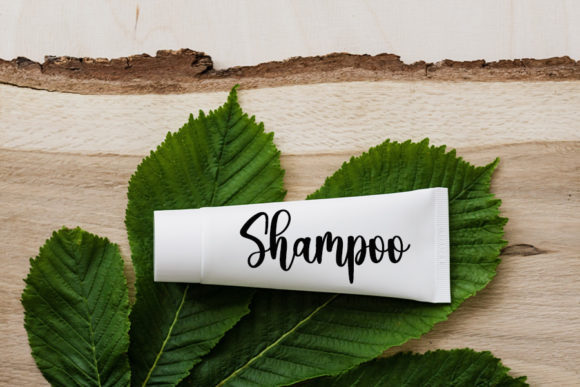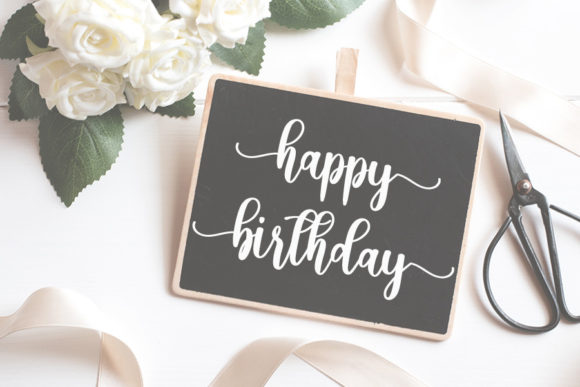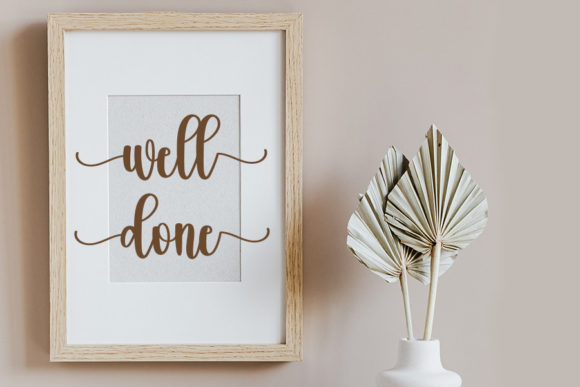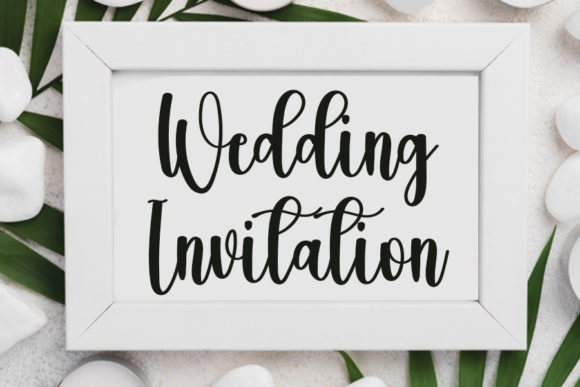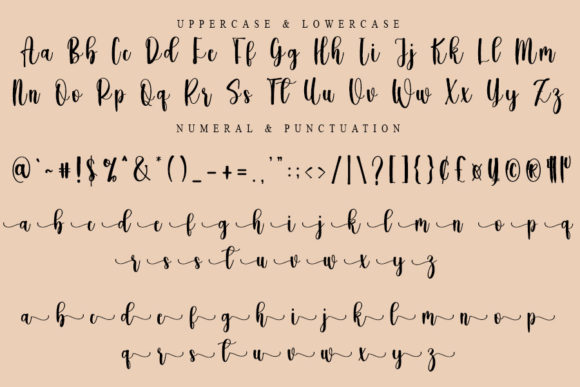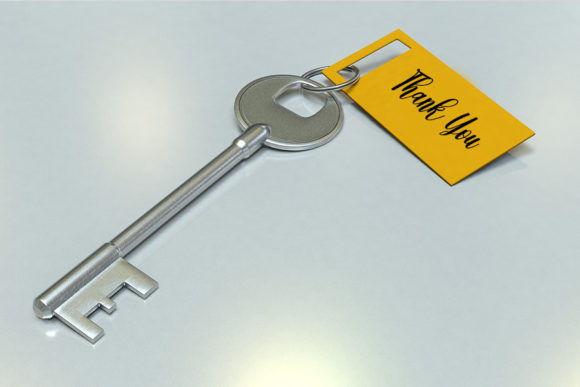
Happiness Font: Elevate Your Designs with Elegance and Class
In the world of typography, fonts play a crucial role in conveying emotions and setting the tone for designs. For those seeking a beautiful and refreshing look, Happiness Font is a lovely and delicate script font that exudes elegance and class. Crafted with precision, this font is perfect for designers and crafters looking to add a touch of sophistication to their projects.
The Charm of Happiness Font
Happiness Font is a script font that boasts a unique and captivating charm. Its delicate strokes and elegant curves make it an ideal choice for designs that require a touch of refinement. Whether you’re working on a wedding invitation, a branding project, or a digital platform, this font is sure to impress. The font’s versatility allows it to be used in various contexts, from formal to informal, making it a valuable addition to any designer’s toolkit.
Key Features of Happiness Font
- Elegant and Refined: Happiness Font features delicate strokes and elegant curves, giving it a sophisticated and refined look.
- Versatile: This font is suitable for various design projects, including wedding invitations, branding, digital platforms, and more.
- Beautiful and Refreshing: The font’s unique charm and character make it perfect for designs that require a touch of elegance and class.
- Easy to Read: Despite its delicate nature, Happiness Font is easy to read, making it suitable for body text and headings.
Uses of Happiness Font
Happiness Font is a versatile font that can be used in a variety of design projects. Here are some ideas to get you started:
- Wedding Invitations: Add a touch of elegance to your wedding invitations with Happiness Font. Its delicate strokes and elegant curves make it perfect for formal events.
- Branding: Use Happiness Font to create a sophisticated brand identity. Its unique charm and character make it ideal for luxury brands and high-end products.
- Digital Platforms: Happiness Font is perfect for digital platforms, including websites, social media, and mobile apps. Its clean and elegant design ensures that your content stands out.
- Stationery: Add a touch of refinement to your stationery with Happiness Font. Its elegant design makes it perfect for business cards, letterheads, and more.
Tips for Using Happiness Font
To get the most out of Happiness Font, here are some tips to keep in mind:
- Pair it with Bold Fonts: Pair Happiness Font with bold fonts to create a striking contrast. This combination works well for headings and titles.
- Use it for Headings: Happiness Font is perfect for headings and titles. Its elegant design makes it ideal for creating a lasting impression.
- Experiment with Colors: Happiness Font looks great in various colors. Experiment with different colors to find the perfect shade for your design.
In conclusion, Happiness Font is a beautiful and delicate script font that exudes elegance and class. Its unique charm and character make it perfect for designs that require a touch of sophistication. With its versatility, ease of use, and elegant design, Happiness Font is a valuable addition to any designer’s toolkit. Whether you’re working on a wedding invitation, a branding project, or a digital platform, this font is sure to impress.